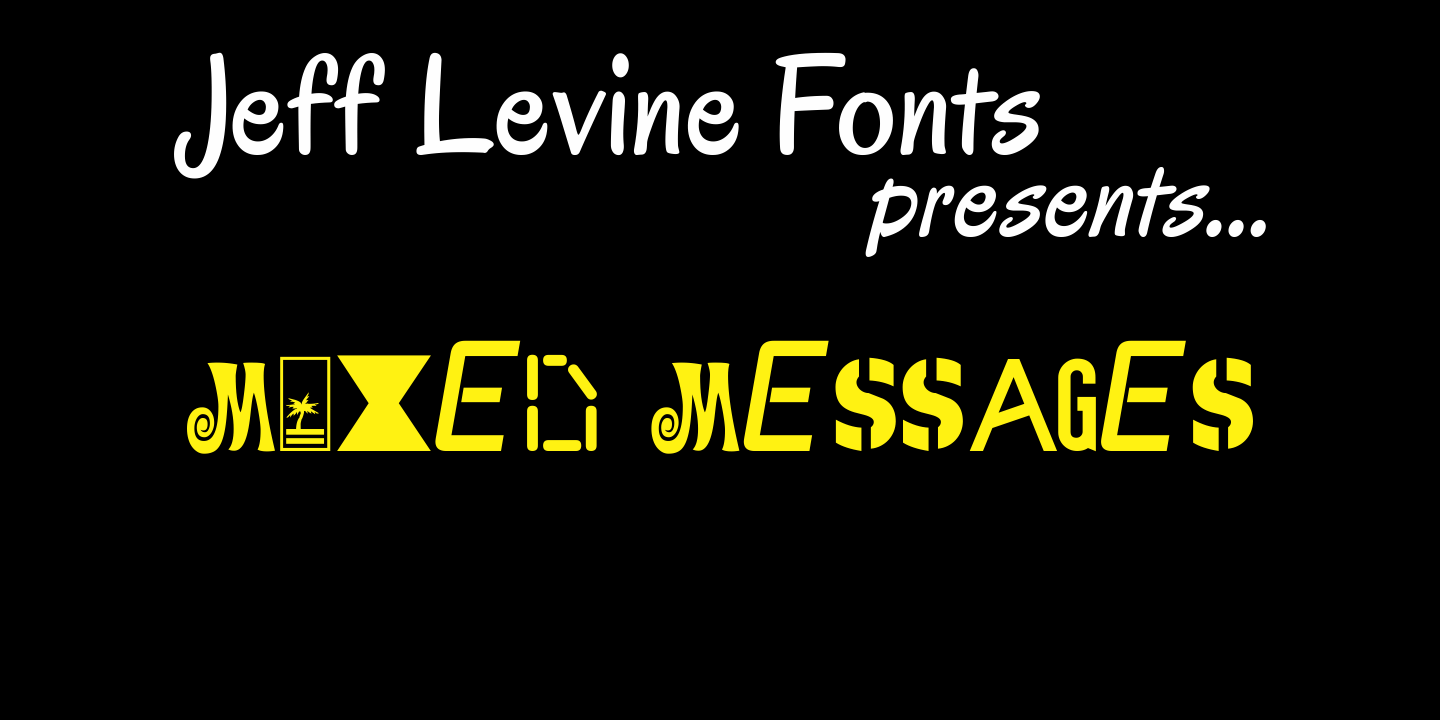
Mixed Messages
Mixed Messages JNL brings back a favorite old theme... mixing up various letters and numbers from different fonts to create a printed message that resembles a ransom note or a collage of type with many styles of lettering.